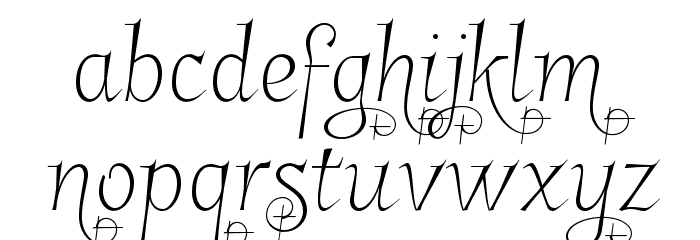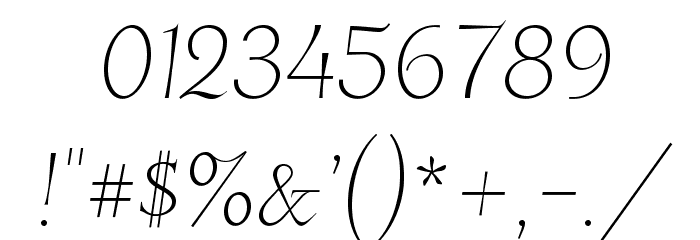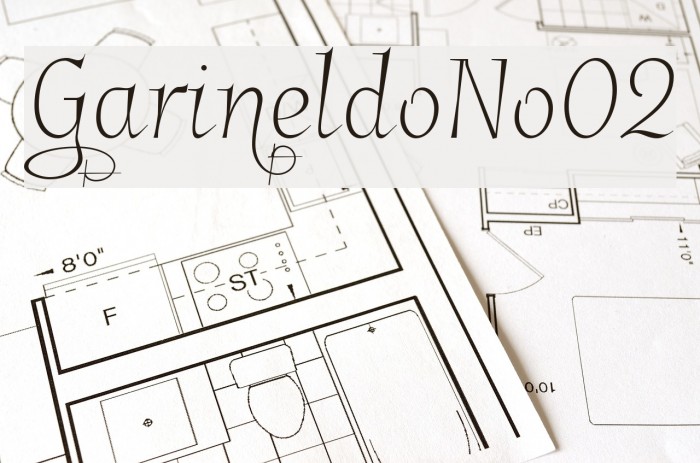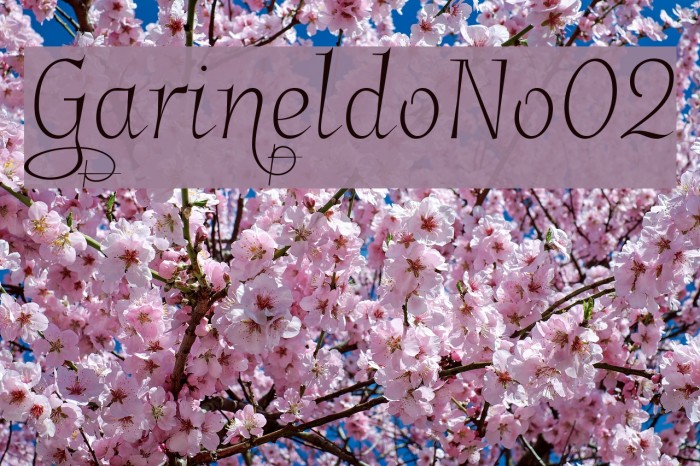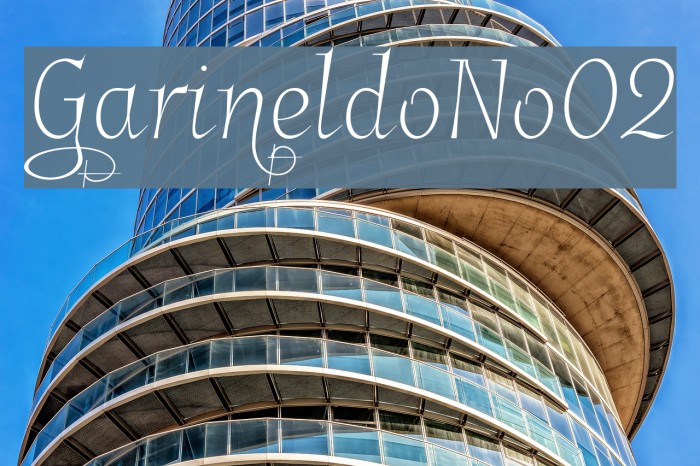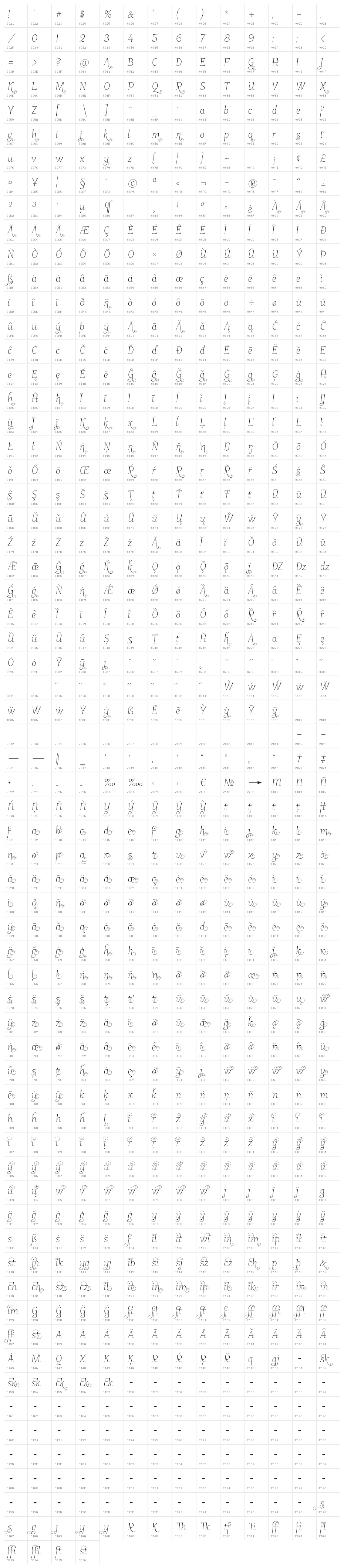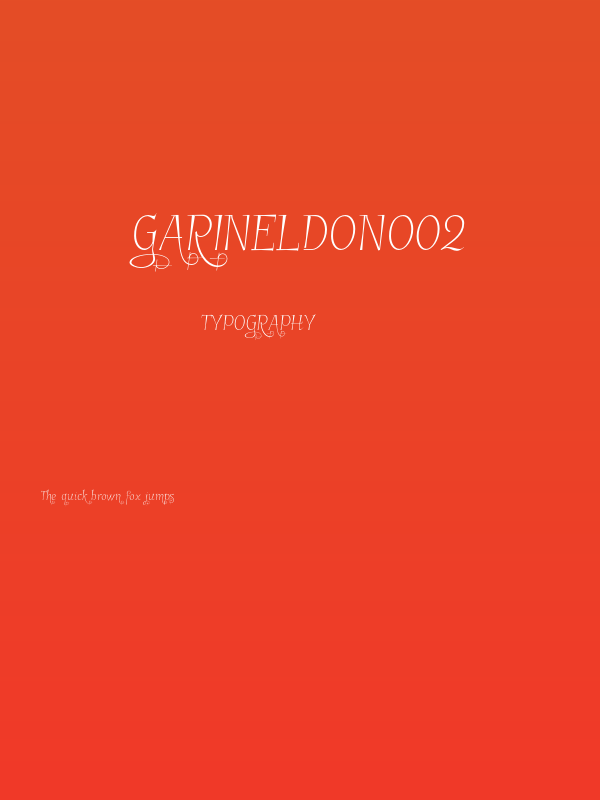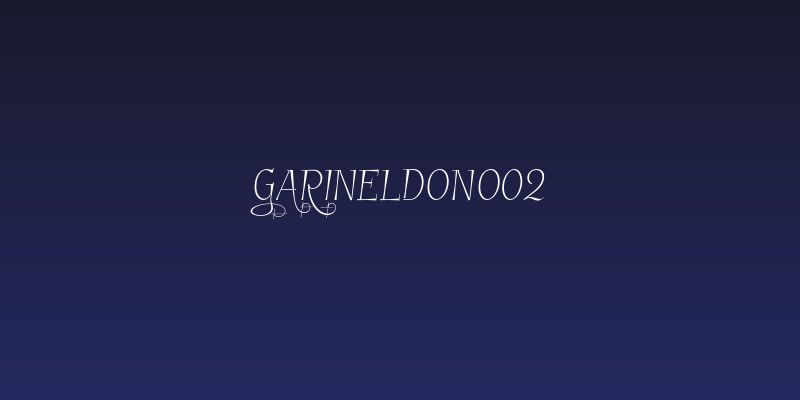
GarineldoNo02 Font
This font features an elegant and sophisticated design with a distinct flair. The characters are adorned with unique, decorative swashes that give it an artistic and refined appearance. The uppercase letters are tall and slender, while the lowercase letters maintain a graceful flow. The numerals are consistent with the overall style, providing a cohesive look. The special characters are designed with the same attention to detail, making this font suitable for creative and high-end projects.
An elegant and sophisticated font with decorative swashes and a refined appearance.
- Proposed Projects: Ideal for wedding invitations, luxury branding, high-end product packaging, and artistic posters.
- Overall Style: Elegant, Artistic
- Use Case: Logos, Invitations, Branding